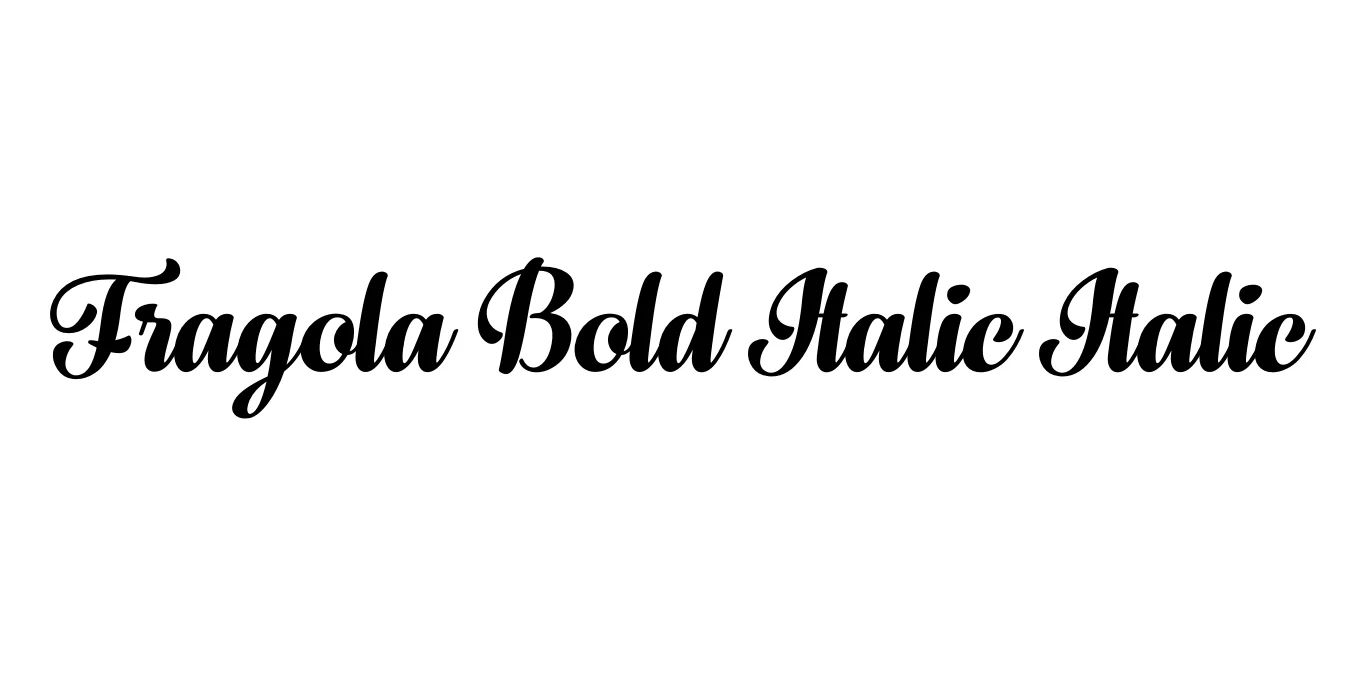
Fragola Bold Italic Italic
Fragola Bold Italic is a vibrant and expressive brush script typeface designed by the renowned type designer Mans Greback. Known for its fluid, hand-painted strokes and rhythmic letterforms, this font captures the essence of spontaneous calligraphy with a polished, professional finish. The Bold Italic weight specifically emphasizes energy and motion, making it an excellent choice for designs that need to stand out with a sense of urgency, confidence, and artistic flair.
The typeface is widely celebrated in the creative industry for its authentic texture and sophisticated swashes. Whether it is utilized for high-end fashion branding or casual lifestyle editorial layouts, Fragola provides a versatile aesthetic that balances raw power with elegant craftsmanship. Its comprehensive character set often includes ligatures and stylistic alternates, allowing graphic designers to craft unique, custom-looking typography for a variety of media.
Fragola Bold Italic Italic Best Uses
Perfect for high-impact brand identities and unique signatures.
Excellent for t-shirt graphics and modern streetwear labels.
Ideal for creating dynamic and engaging visual content and quotes.
Adds a premium, handmade touch to organic product labels and boxes.